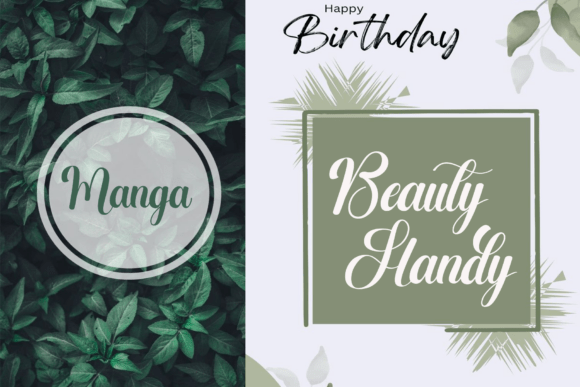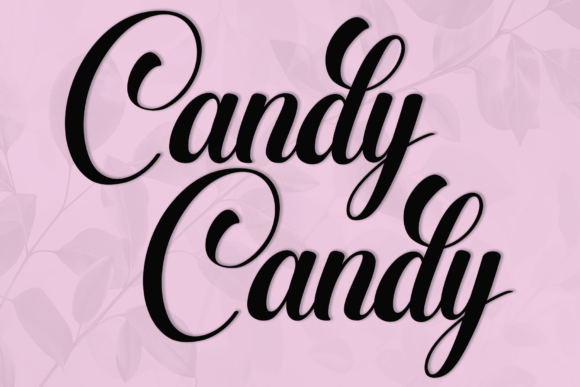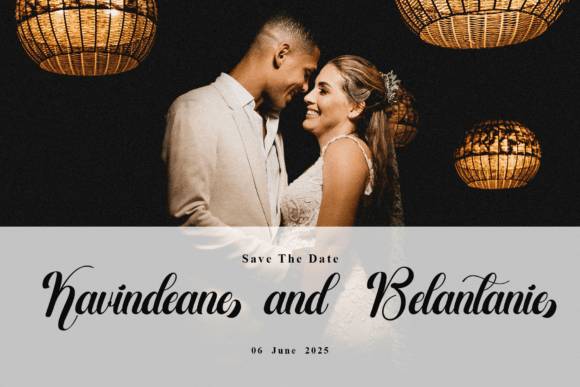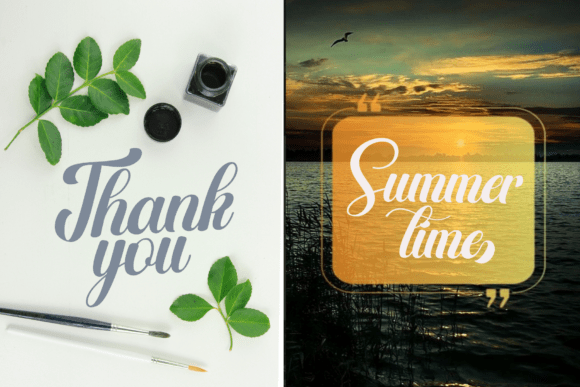
The Perfect Match: Unveiling the Magic of Bride Magic Font
As designers, we’ve all been there – staring at a blank canvas, trying to conjure up the perfect combination of words and visuals to capture the essence of a brand or message. It’s that moment when you finally find the perfect font, and it all clicks into place. For many, that moment has come with the discovery of the Bride Magic Font.
Bride Magic Font is a casual, handwritten font that exudes warmth and authenticity, making it the perfect companion for designers seeking to add a personal touch to their work. With its smooth strokes, relaxed curves, and naturally balanced letterforms, it effortlessly captures the charm of everyday handwriting, while maintaining a clean and approachable style.
For designers, the value of Bride Magic Font lies in its versatility and readability. Whether you’re crafting quotes, branding materials, packaging, or social media posts, this font adds a friendly and approachable touch that resonates with audiences. Its effortless flow and character make it a valuable addition to any design toolkit.
Bride Magic Font Key Features
- Size: This elegant script font features a single font size, ideal for creating beautiful wedding invitations, stationery, and other special occasion designs.
- Unique Characteristics: This beautiful script font boasts intricate details, flowing lines, and elegant flourishes, creating a romantic and whimsical atmosphere.
- Font Style: Bride Magic Font is a script font, ideal for adding a touch of elegance and sophistication to any design project.
Bride Magic Font Review
I recently had the chance to work with the Bride Magic Font, and I must say it’s a lovely addition to any wedding design project. ✨ The font’s elegant script style is perfect for capturing the romance and whimsy of a wedding. The swashes and flourishes add a touch of sophistication, making it ideal for invitations, wedding programs, and other special stationery.
The font is also highly customizable, allowing designers to adjust the line width, swash style, and flourish type to fit their unique design needs. This level of control is a definite plus for designers who want to create truly unique and personalized designs. ✨
However, there are a few limitations to keep in mind. ⚠️ The font may not be suitable for very large or bold text, as the swashes and flourishes can become overwhelming. Additionally, some users have reported issues with font embedding and compatibility with certain software.
Overall, the Bride Magic Font is a beautiful and versatile font that’s perfect for wedding designers. While it may have some limitations, its elegant script style and customization options make it a valuable addition to any design toolkit.
- Use it in combination with other elegant fonts for a sophisticated look.
- Experiment with different font sizes and colors to create a visually appealing design.
- Use the font in conjunction with images or graphics to add texture and interest to your design.
The Bride Magic Font is perfect for:
- Wedding websites and blogs.
- Wedding photography and videography branding.
- Wedding planning and coordination materials.